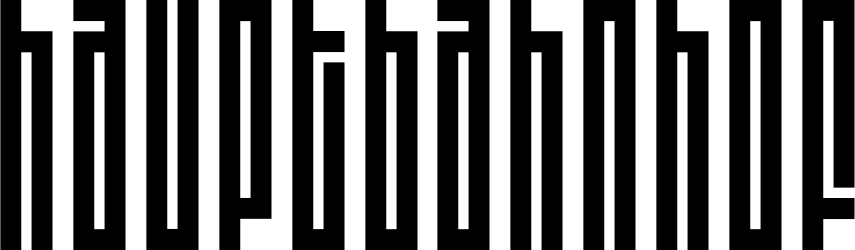
Hauptbahnhof Font
Sometimes to create better content, you need to think outside the box and try unfamiliar things like this square font. Hauptbahnhof has a unique design which makes it a perfect choice for projects like branding, YouTube Thumbnails, logotypes, product packaging, and social media posts.
This typeface comes in two styles and each of them contains both the uppercase and lowercase of the alphabet, the numbers, and the punctuation marks. By the way, it’s not that readable.
Hauptbahnhof is inspired by graffiti from my area.